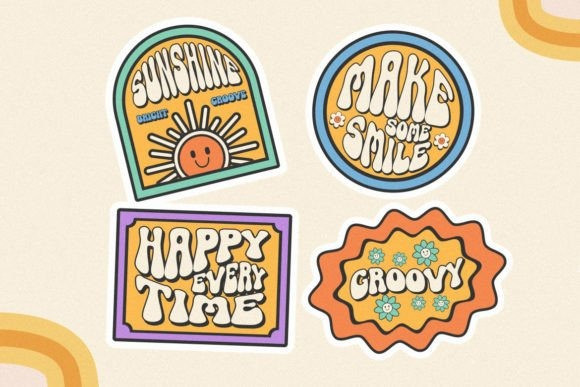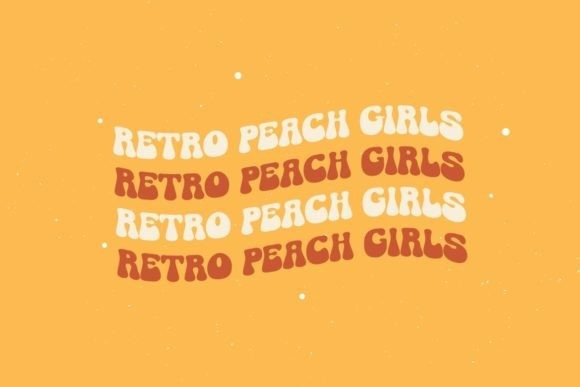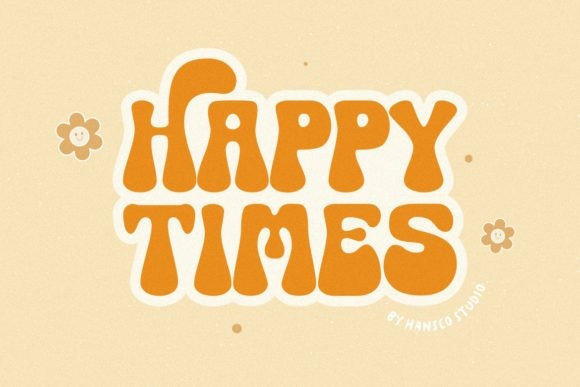
Happy Times Font
Happy Times Font is a retro groovy font style with some alternative swashes in it. Use this display font to add that special retro touch to any design idea you can think of!
Very suitable for logotype, Stickers, Packaging design, Cricut Project, headlines, brand identity, t shirt or apparel industry, posters, magazines, books, YouTube, Instagram, websites, or any of your creative design projects.